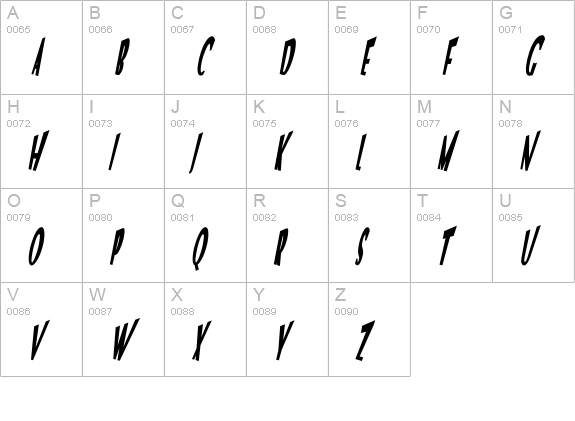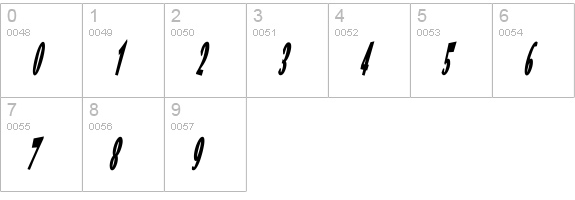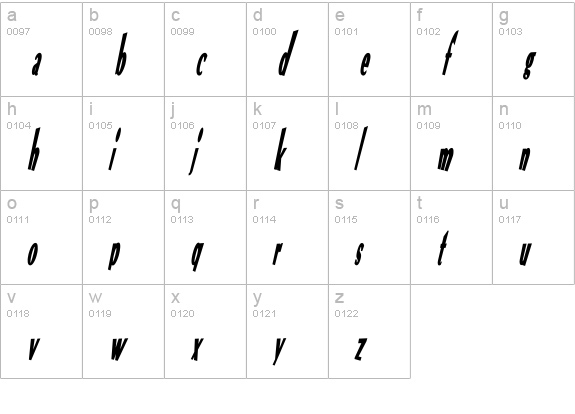
VTC Optika Bold Italic Font Details
VTC Optika Bold Italic is a strong, high-contrast, italic variant in the VTC typeface family \xE2\x80\x94 well suited to headlines, attention-grabbing titles, and strong calls-to-action.
VTC Optika Bold Italic font is a stunning and versatile typeface that exudes elegance and sophistication. Its bold and italic design adds a touch of flair, making it perfect for projects that require a strong visual impact. With its carefully crafted letterforms, VTC Optika Bold Italic font strikes the perfect balance between legibility and style. This font is a must-have for any designer or creative professional looking to make a bold statement. Whether it's for headings, logos, posters, or any other design project, VTC Optika Bold Italic font will elevate your work to new heights. One of the best things about VTC Optika Bold Italic font is that it is freely available to download at FontsMarket.com. This means that you can enjoy the benefits of this exquisite typeface without having to spend a dime. It's a fantastic opportunity to enhance your design projects with a high-quality font that doesn't break the bank. Don't miss out on the chance to add VTC Optika Bold Italic font to your font library. Download it for free at FontsMarket.com and unlock a world of possibilities for your creative endeavors.